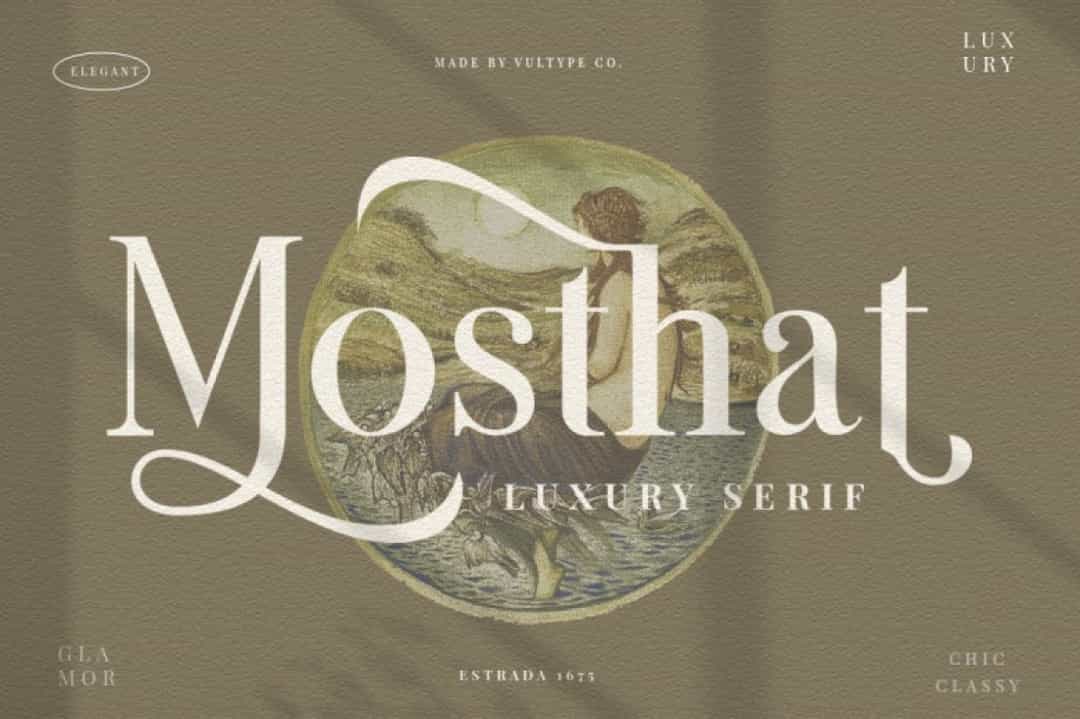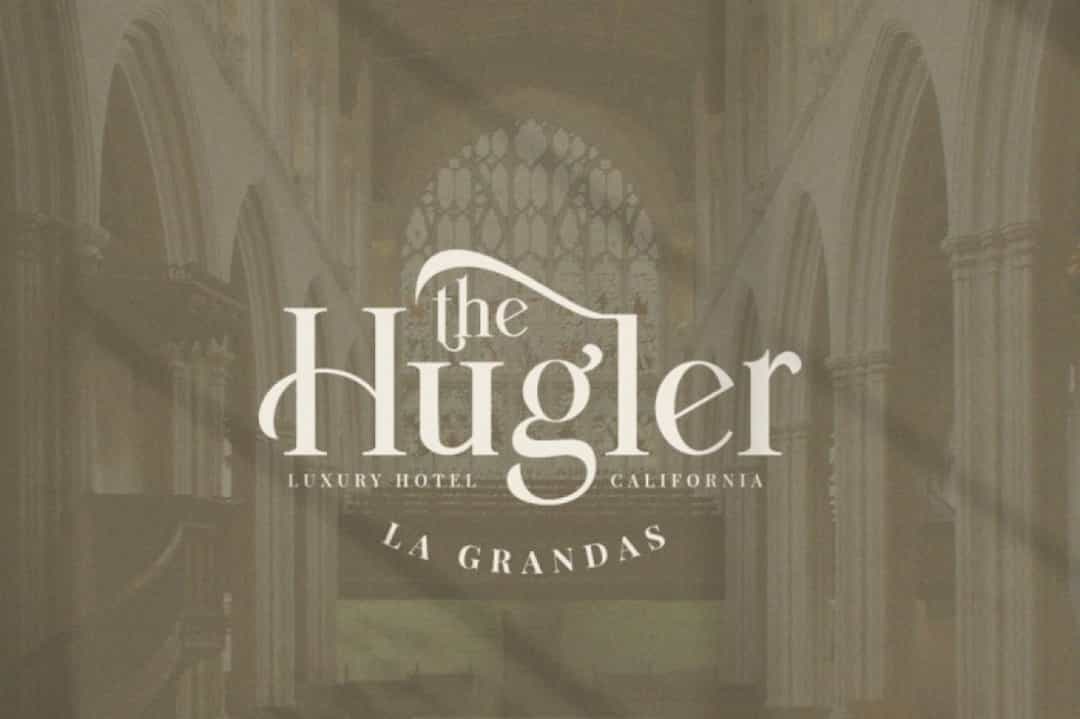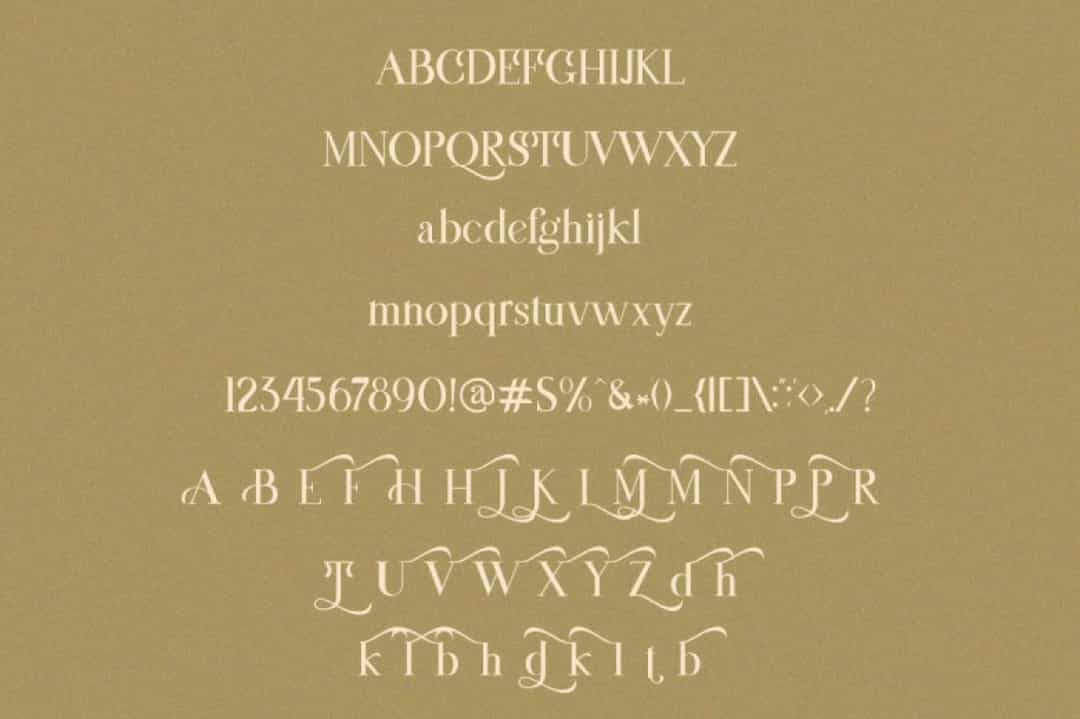
Discover Mosthat Font, part of the Serif collection—a versatile and unique font perfect for adding a personal touch to your projects. Download it for free and enjoy crafting designs with style, from invitations to social media posts. This font is available exclusively for personal use, giving you the freedom to create without limits. Unlock your creativity with Mosthat Font today!
Moshatis an old-fashioned serif typeface with plenty of fashion. With its simple, minimalist appearance and longstanding association to fashion, its presence is both contemporary and vintage – ideal for mastheads, logos or pull quotes; also perfect when combined with minimalist sans serif or lighter script fonts.